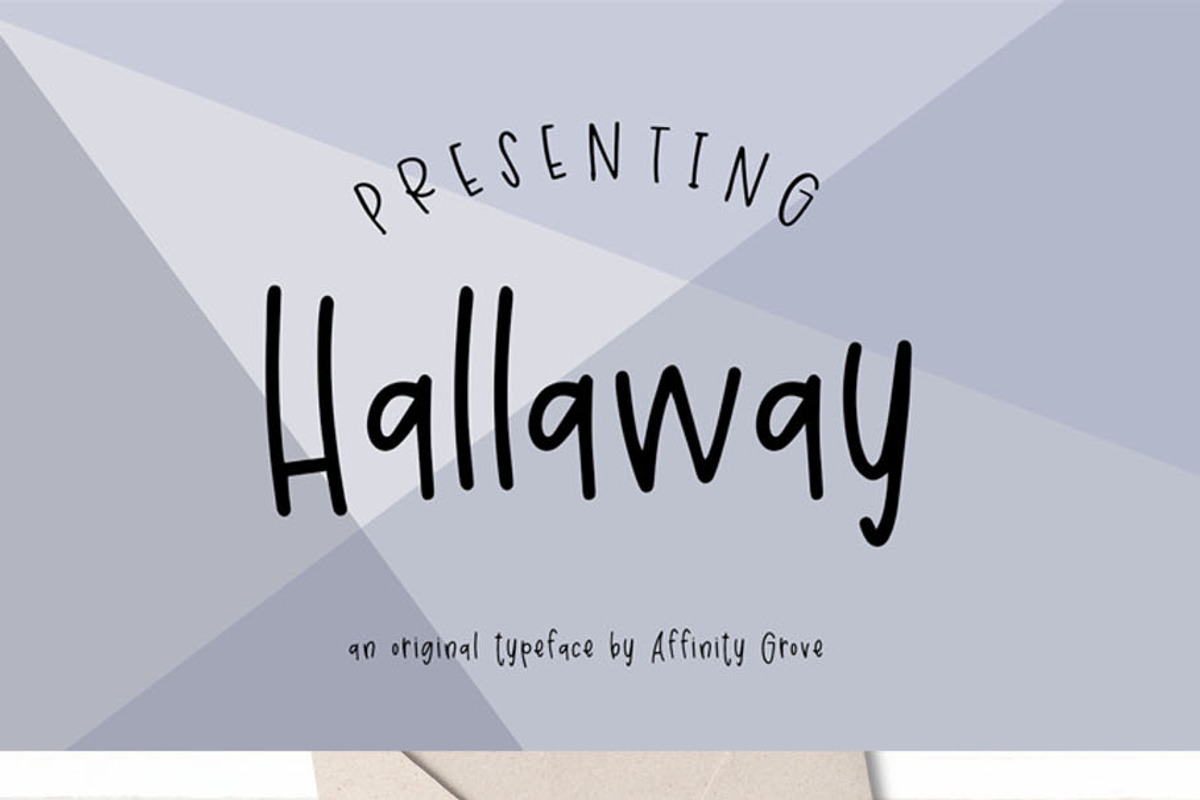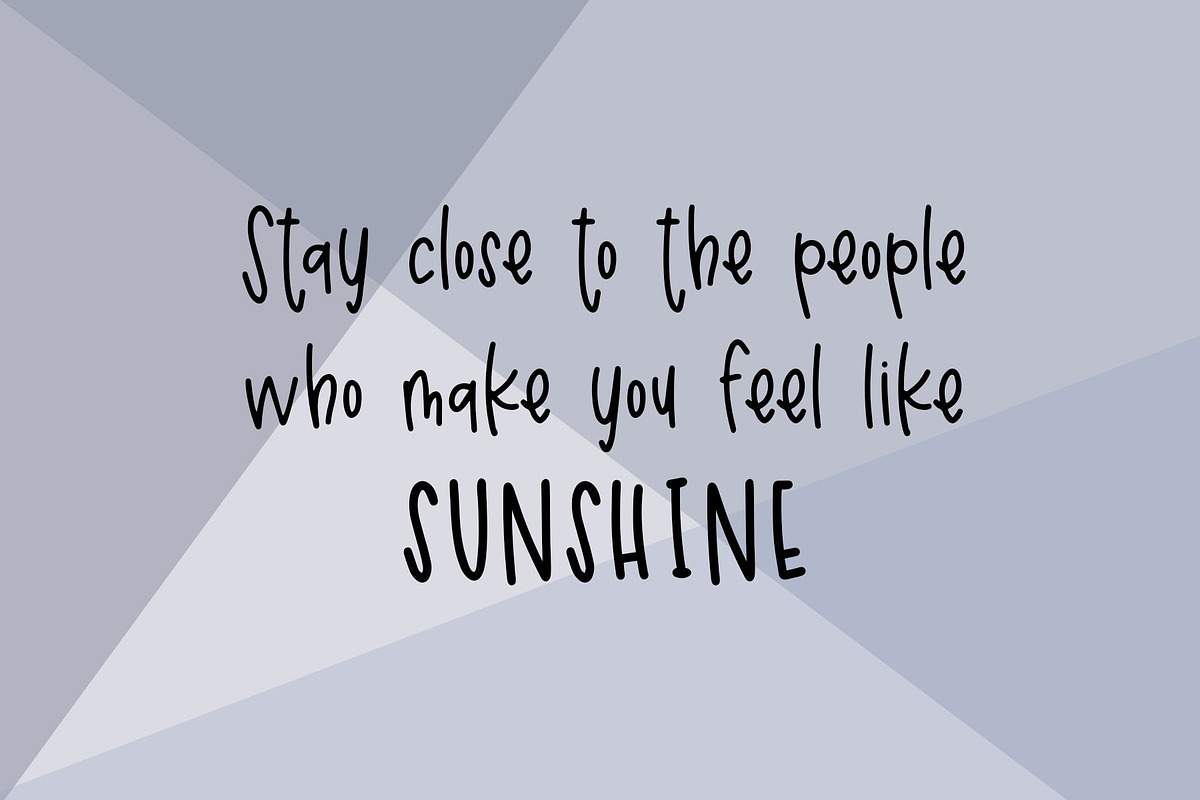
Hallaway
Hallaway is a cute and casual hand-lettered font. Use it to style designs for party invitations, websites, products, greeting cards, and more! 2 fonts included! Regular & Bold. Add variety and character to your next project with the Hallaway font!